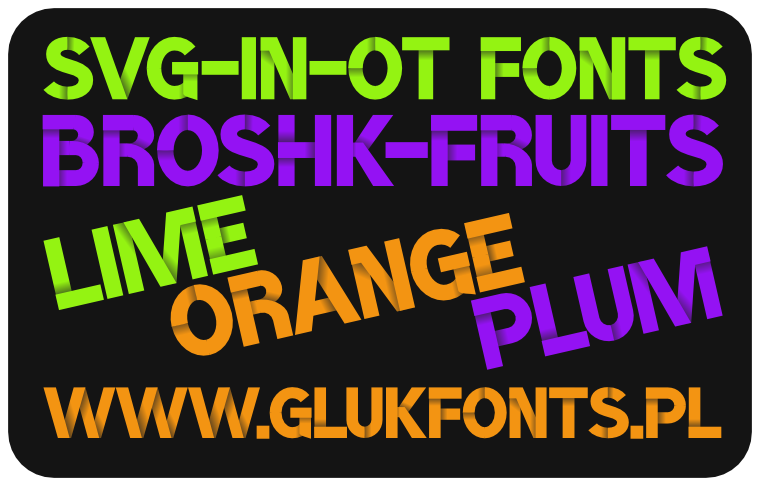
SVGinOpenType color fonts BroshK-fruits: BroshK-Orange, BroshK-Plum and BroshK-Lime are simpler versions of BroshK→ prepared for use in Phởtoshop CC 2017 and Adobe Illustrator CC 2018 with embedded color values. OpenType SVG color font (Opentype-SVG) format is proposal for multi-color, vector fonts.